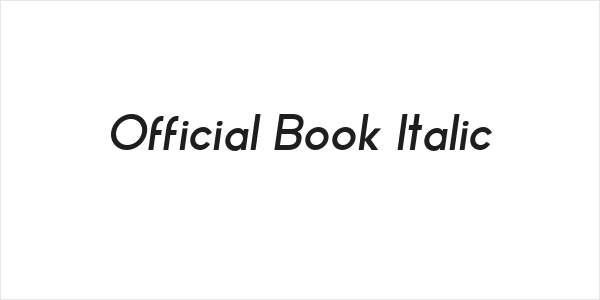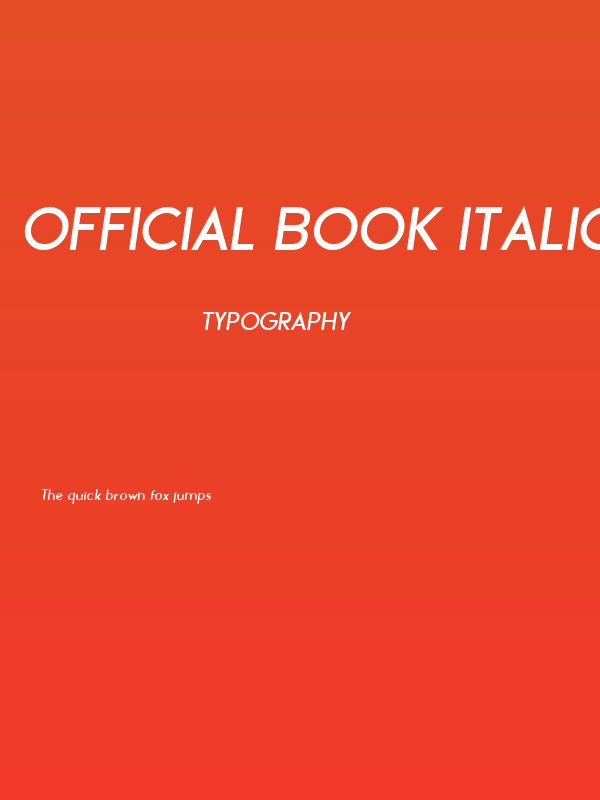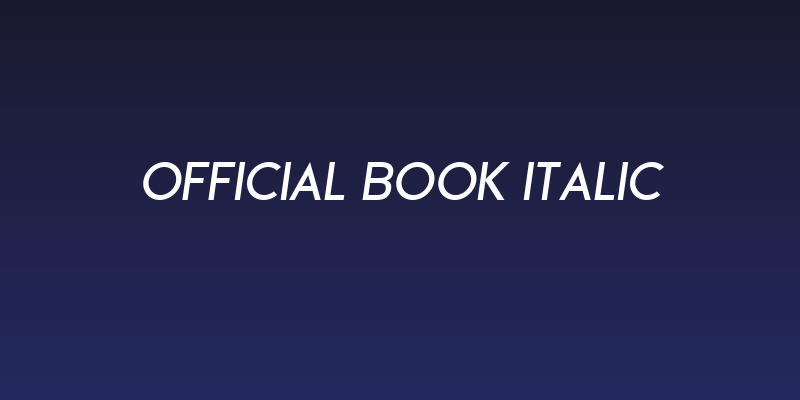
Official Book Italic Font
Official Book Italic Description
This font features a clean and modern design with a subtle italic slant, giving it a dynamic yet elegant appearance. The characters are well-proportioned with smooth curves and a consistent stroke width, providing excellent readability. The uppercase letters are bold and assertive, while the lowercase letters maintain a friendly and approachable style. The numerals are clear and distinct, making them suitable for various applications. The punctuation marks are simple yet effective, complementing the overall aesthetic of the font.
| Proposed Projects | Ideal for use in branding, advertising, and editorial design where a modern and elegant touch is desired. |